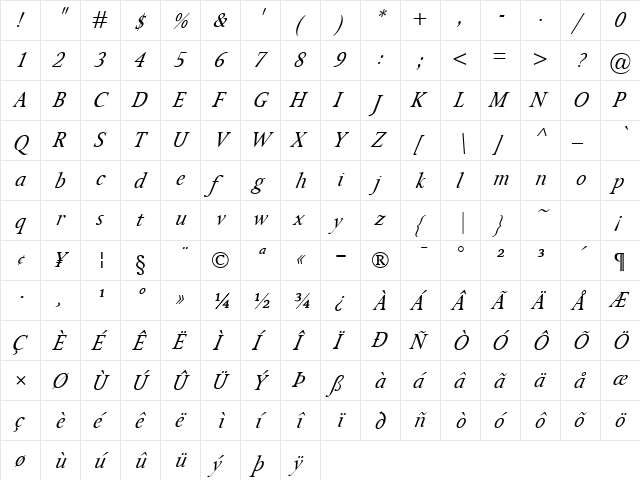
Isolde Italic Font Preview
Isolde Italic
Isolde Italic Font Details
Design Context for Isolde Typeface
Isolde takes a measured approach to typography — its balanced proportions and neutral character make it a reliable workhorse for both digital and print work. The dynamic lean of this cut emphasises speed and emphasis in any layout.
Pro Tip: Use Isolde for emphasis, pull quotes, and subheadings where its slanted energy can add rhythm to the layout.